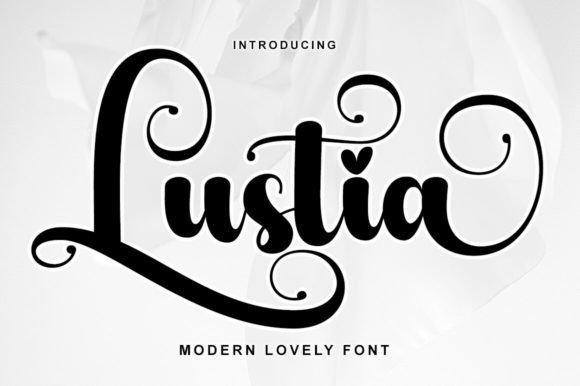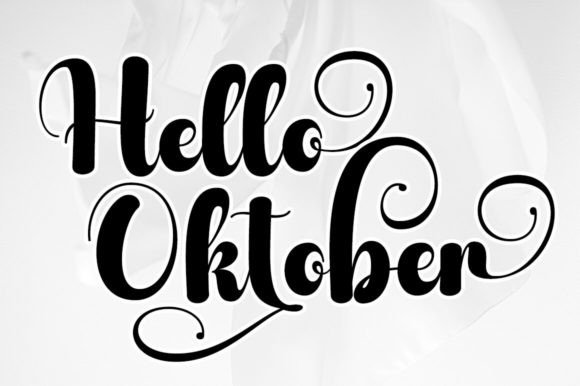
Lustia Font
Lustia Script with beautiful handwriting style. Equipped with glyphs. Lustig Script is perfect for branding projects, homeware design, product packaging, use in business cards, invitation cards, etc. Simply as a stylish text overlay on a background image or anything that needs a touch of elegance.